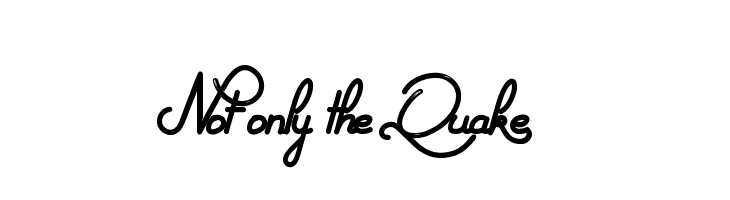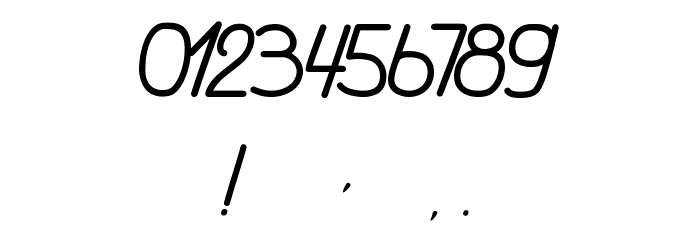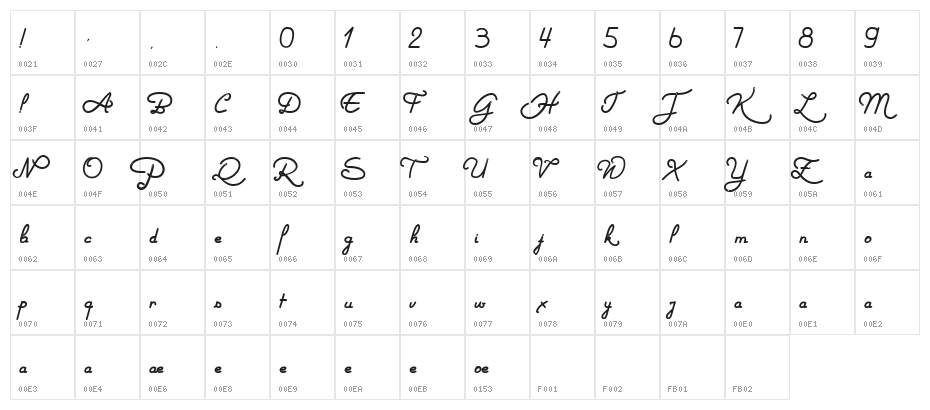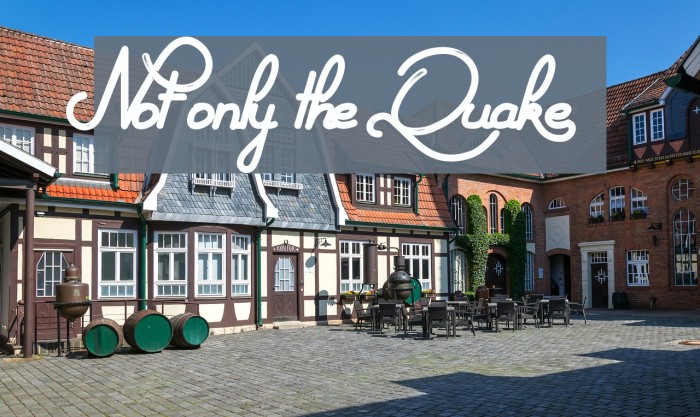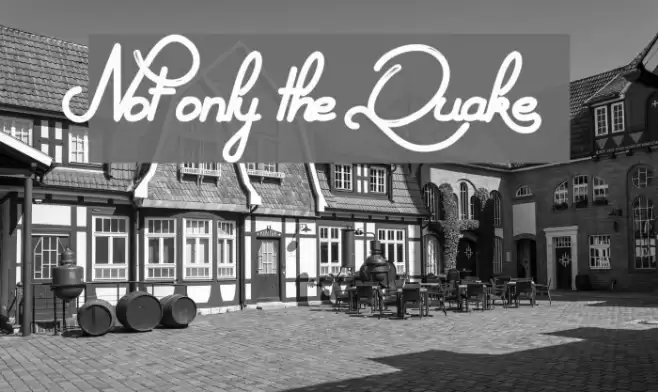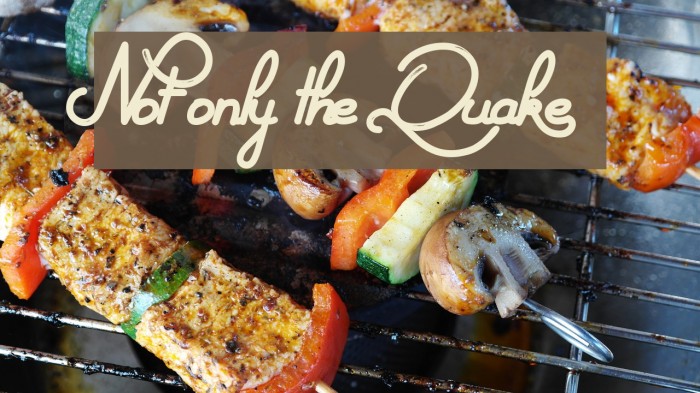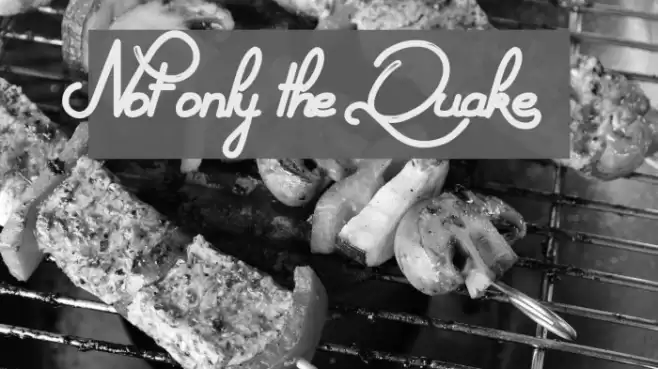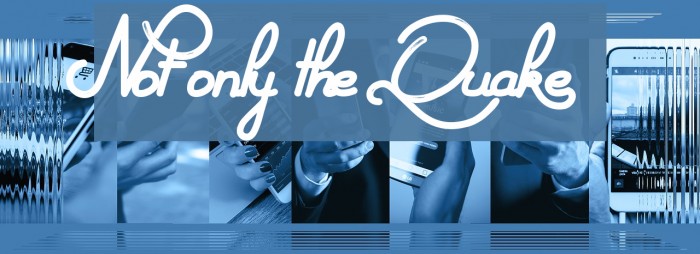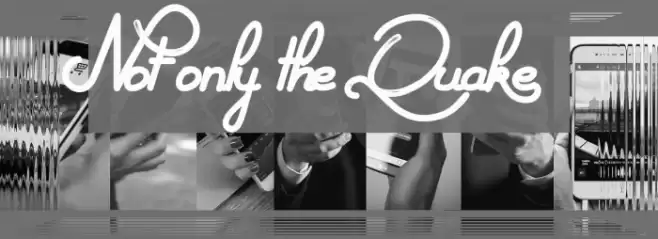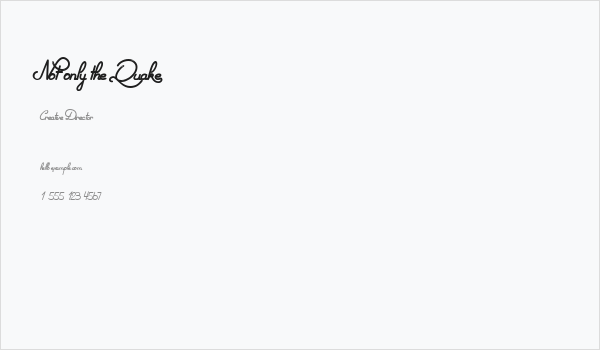
Not only the Quake Font
Not only the Quake Description
This font features an elegant and flowing script style, characterized by its cursive, interconnected letterforms. The uppercase letters are ornate and decorative, with intricate loops and swirls that give a sense of sophistication and flair. The lowercase letters maintain a consistent style, with smooth curves and a slightly slanted orientation, enhancing the overall fluidity of the design. The numerals are clear and legible, maintaining the cursive theme with subtle embellishments. Special characters are included, matching the decorative style of the alphabet. This font exudes a sense of grace and is well-suited for formal and creative applications.
| Proposed Projects | Ideal for wedding invitations, elegant branding, greeting cards, and artistic projects. |